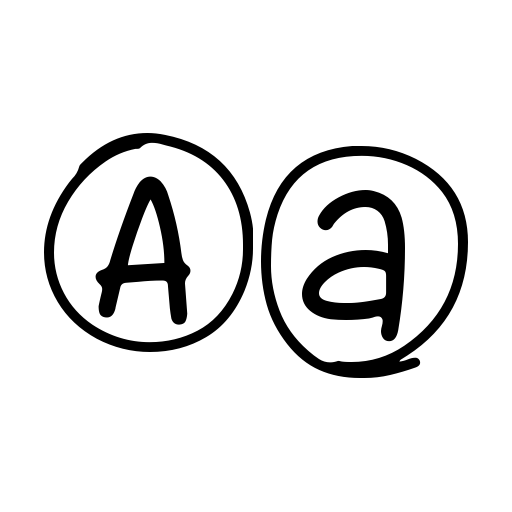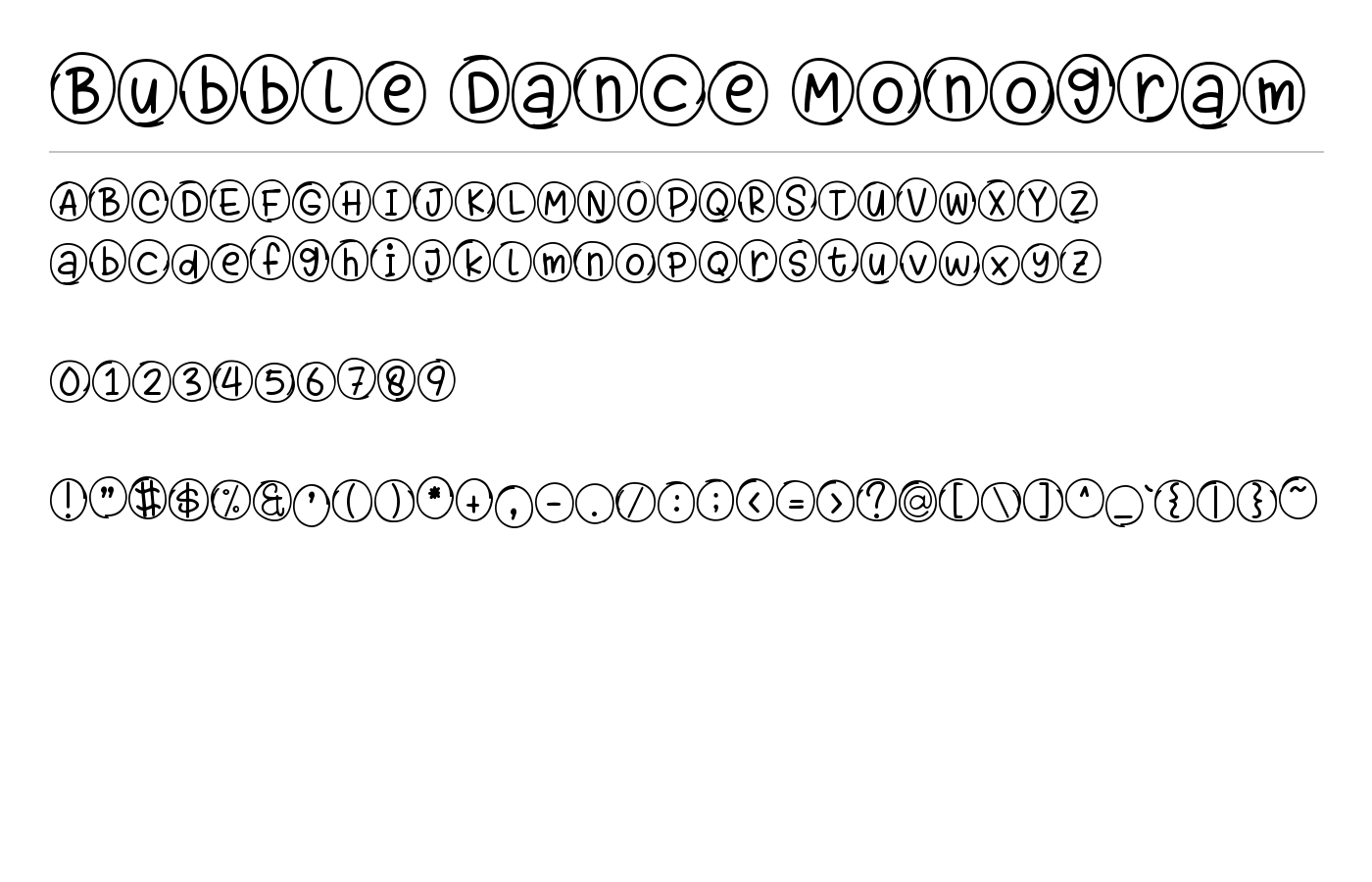
Bubble Dance Monogram Font is a playful and whimsical sans serif typeface characterized by its bubble-like circular outlines surrounding quirky, hand-drawn letterforms. This light and airy font features consistent stroke weight with rounded shapes, making it perfect for informal, fun branding, children’s products, party invitations, and creative logos where a lively and friendly vibe is desired. Its unique encircled letters add a distinctive monogram style that works well for decorative headlines and eye-catching designs.
Bubble Dance Monogram Font
About Bubble Dance Monogram Font
| Font family | Bubble Dance Monogram Font |
| Designer | Dimas Prasetyo |